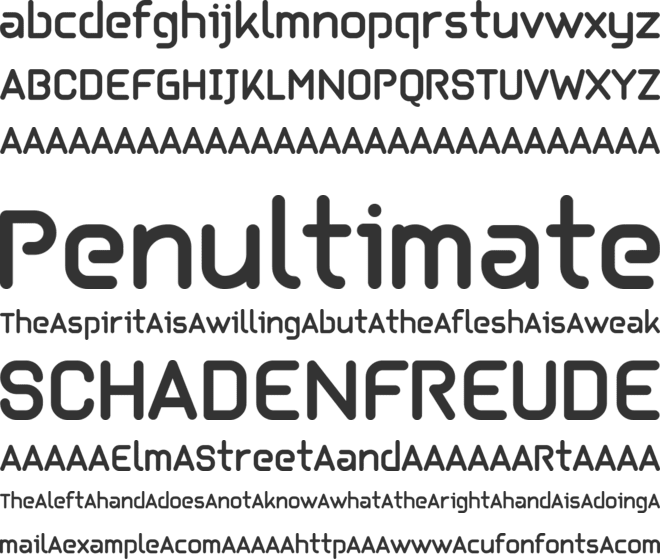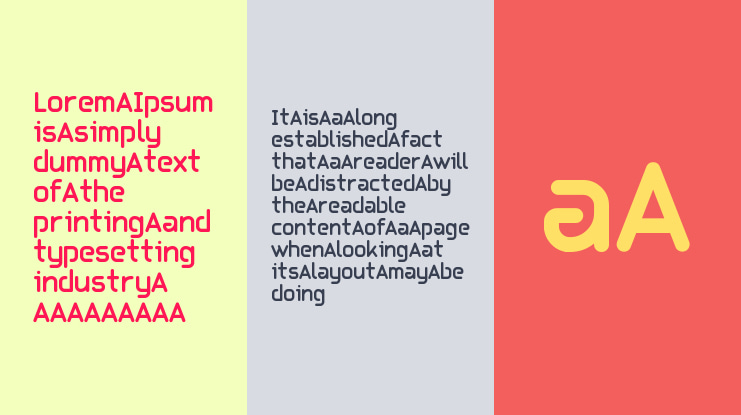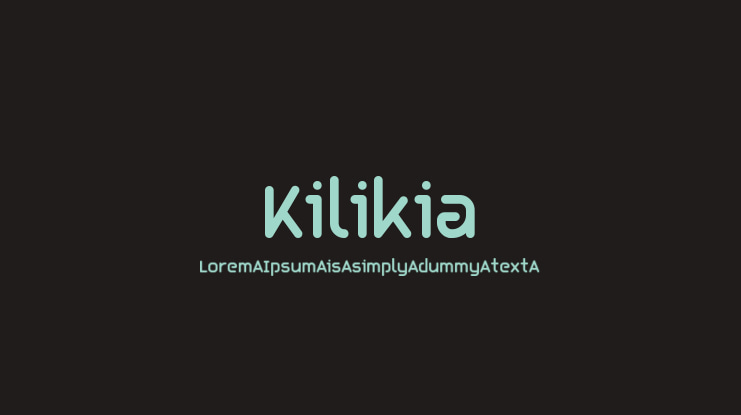
Kilikia Font
Kilikia is a soft contemporary geometric typeface which blends distinct minimalist characteristics with mainstream details. It can be used for logos, advertising slogans, posters and banners,etc. Designed for use in many different kinds of materials. The design is sans-serif, futuristic, rounded and provides 632 glyphs including advanced typographical support with features such as ligatures, alternate characters, case-sensitive forms, fractions, super- and subscript characters and many more. Kilikia offers multilingual support for all Central, Western and Eastern European languages including Greek and Cyrillic.